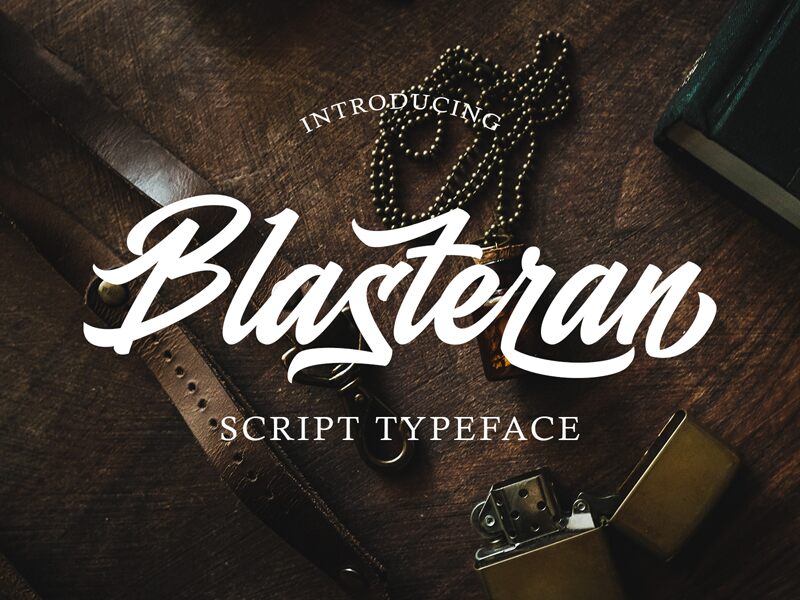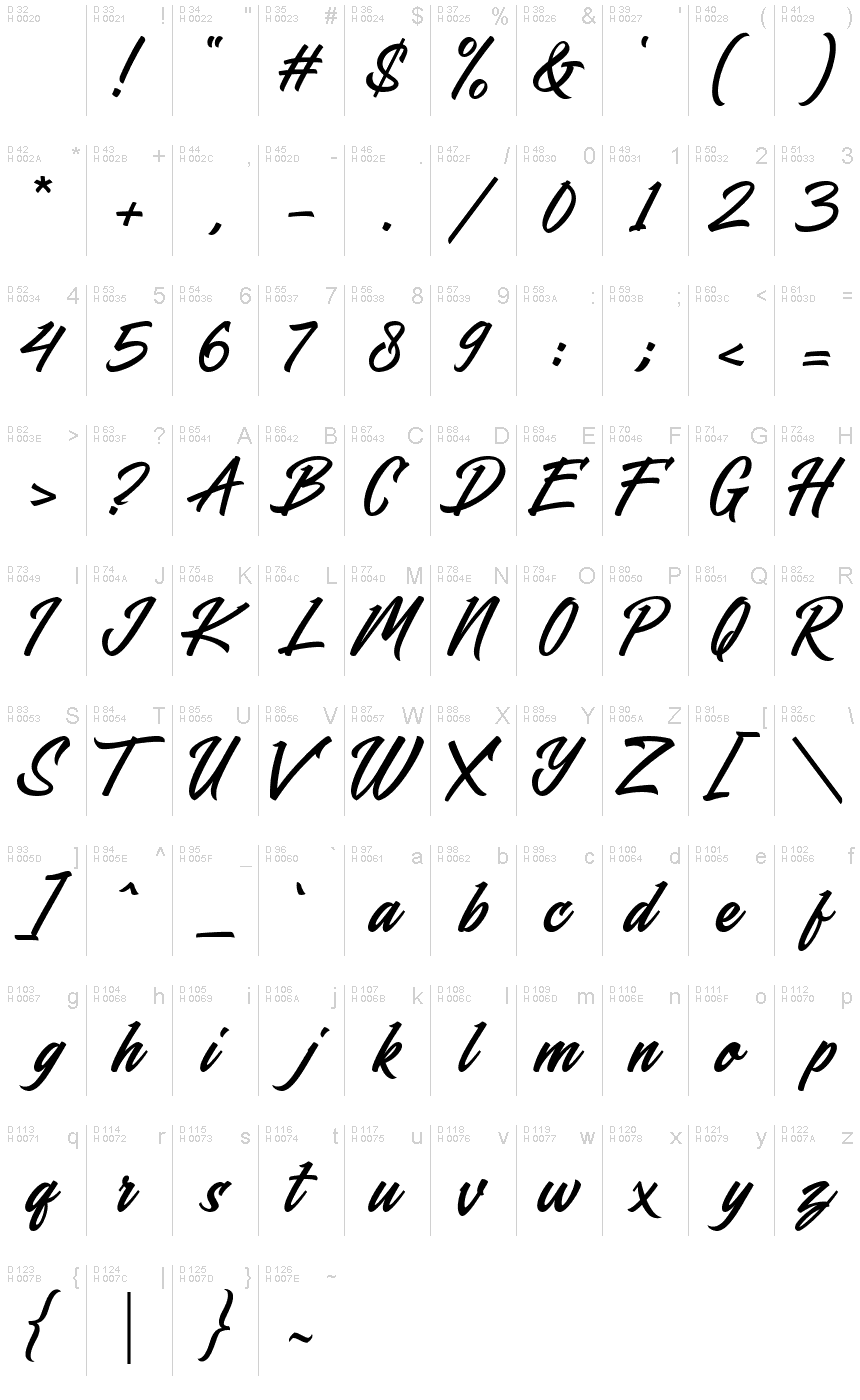
Blasteran
Blasteran, the exquisite creation by Kong Font, is a captivating handwritten signature font. With its semi-condensed width, this font exudes elegance and sophistication. Perfect for branding and logo designs, Blasteran adds a touch of personal flair to any project. Its sleek strokes and graceful curves make it ideal for fashion magazines, beauty blogs, and lifestyle websites. Whether you're working on wedding invitations or luxury packaging, this font will elevate your designs with its timeless appeal. Let Blasteran be your go-to choice for creating stunning visual identities that leave a lasting impression.